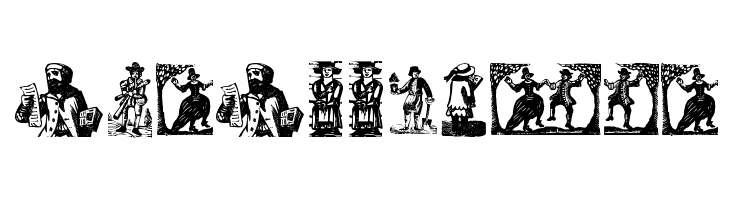
WoodTypesMK Font
A bold, decorative typeface with a vintage, playful style and intricate detailing.
a picture alphabet Font
A decorative font with intricate illustrations within each letter.
crowns and coronets Font
Ornate crown and coronet illustrations in a vintage style.
FD J Borges Font
An artistic and whimsical font with characters illustrated as intricate scenes and figures.
birds a Font
A decorative, bird-themed illustrative font.
little people Font
A whimsical, decorative font featuring playful, vintage-style illustrations of little people.
mythology one Font
Illustrative font with mythological figures as glyphs.
the middle ages I Font
Medieval-themed illustrative display set with hand-drawn engravings.
Picture Alphabet Font
Font by Dieter Steffmann
An ornate, decorative font with intricate illustrations within each letter.
Woodcuts2007 Font
Ornate woodcut illustration font with pictorial glyphs.
WoodcutsOne Font
A decorative font featuring whimsical, hand-drawn illustrations with a woodcut style.
WoodcutsFive Font
Ornate woodcut-style pictorial dingbat font.
WoodcutsAgain Font
Ornate woodcut-style dingbat illustrations for each character.
FDJBorges Font
An artistic and illustrative font with characters embedded in folk art scenes.
WoodcutsFontissimo Font
A decorative font with intricate woodcut-style illustrations within each character.
WoodcutsTwo Font
Hand-drawn woodcut-style medical icon set.
WoodcutSix Font
A woodcut-style dingbat font with playful, vintage illustrations.
WoodcutsFound Font
Intricate woodcut-style illustrations with bold, high-contrast lines.